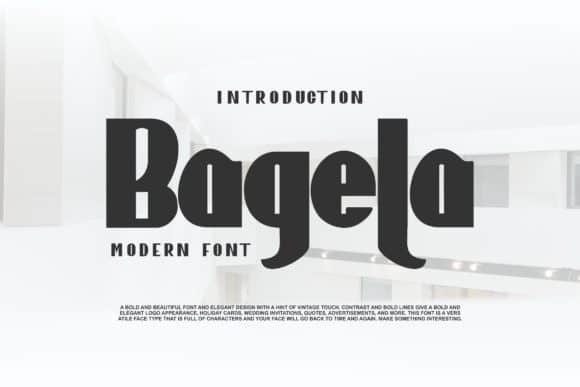
Bagela Sans Serif Font
Introducing Bagela Sans Serif Font. The font is geometrically perfect, which means it’s aesthetically pleasing to the eye. Heisman is fully-kerned and is effortless to use. Made from font designer named Vunira.
It’s a bold sans serif font, carefully handcrafted to become a true favorite. Its casual charm makes it appear wonderfully down-to-earth, readable and, ultimately, incredibly versatile. This font will look outstanding in any context, whether it’s being used on busy backgrounds or as a standalone headline!